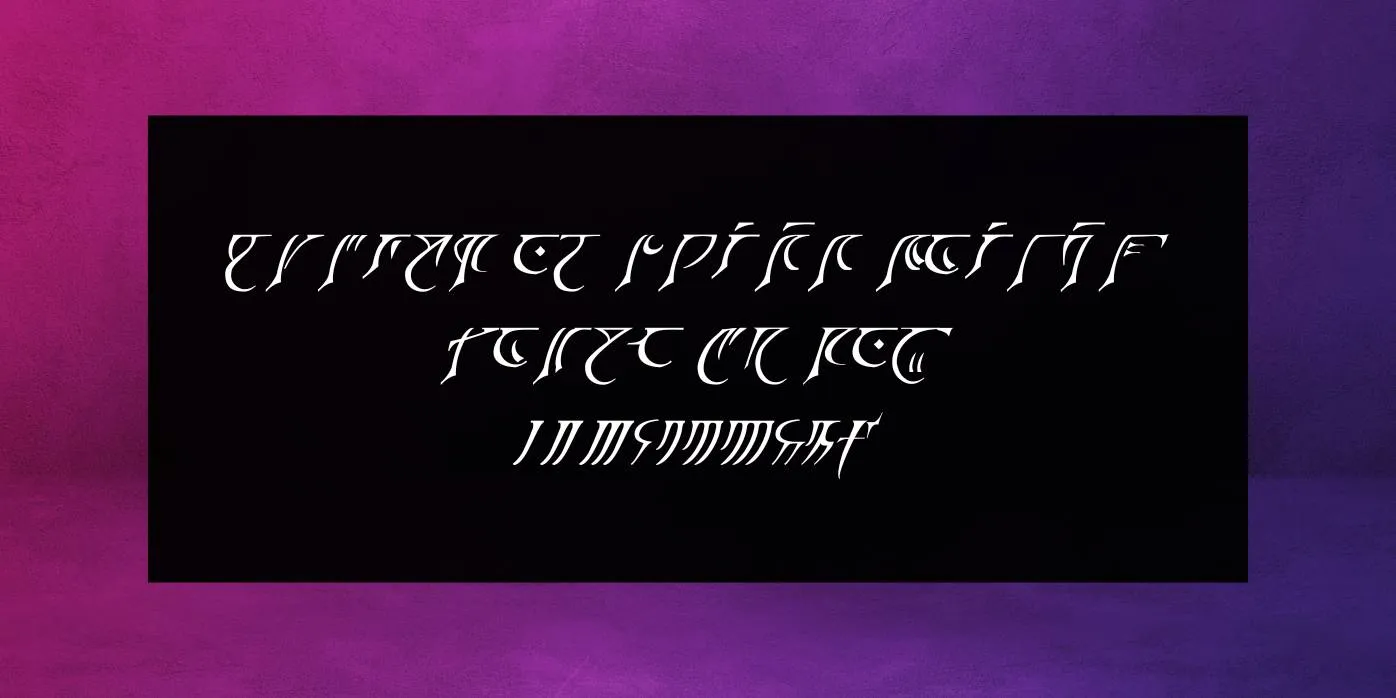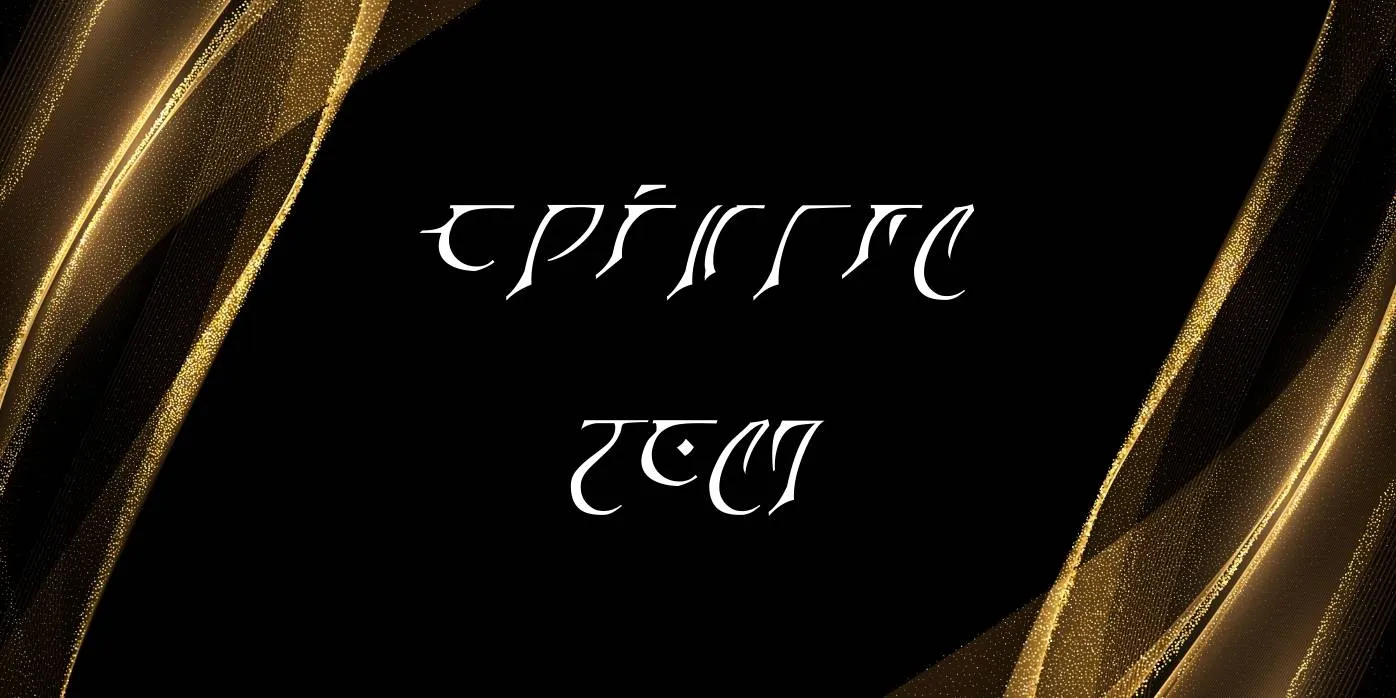
Eladrin Font
Eladrin Font was designed by the Pixel Sagas. The characters for this typeface are amazing, stunning, and fantastic. This typeface is present on this website free of cost in both OTF and TTF font formats. If you want to get this amazing dingbat typeface, then click on the download button that is given below in the download section.